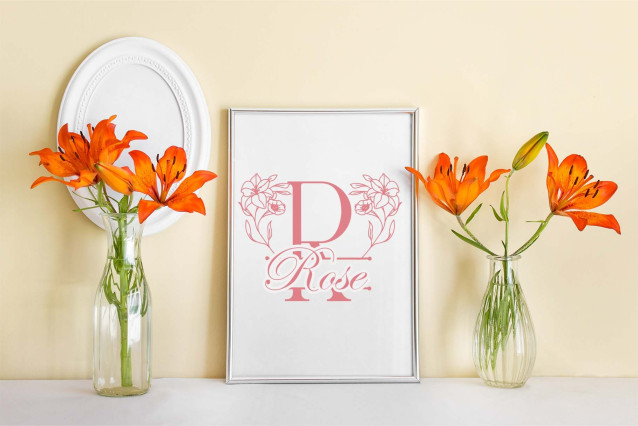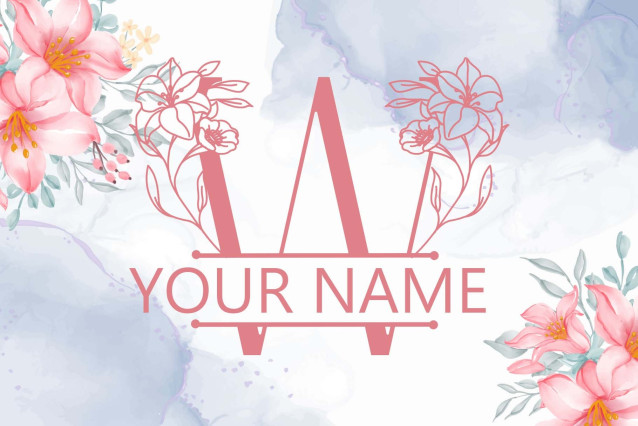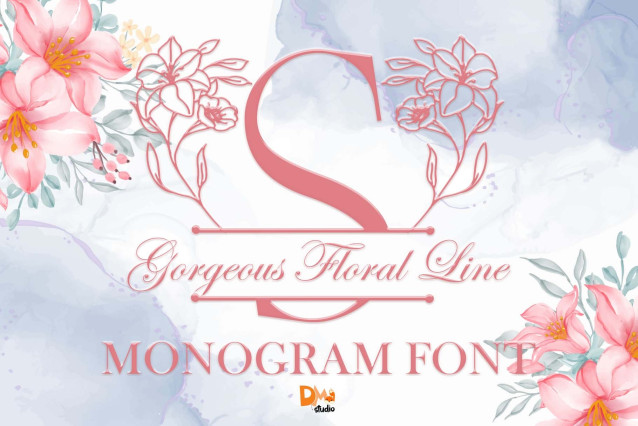
Gorgeous Floral Line Monogram Font
Gorgeous Floral Line Monogram is a refined and graceful monogram font that features delicate hand-drawn floral line art. Each character is thoughtfully crafted with intricate floral accents, making it perfect for wedding invitations, branding, stationery, packaging, and elegant personal projects. This ornamental font adds a touch of natural charm and sophistication to your designs.